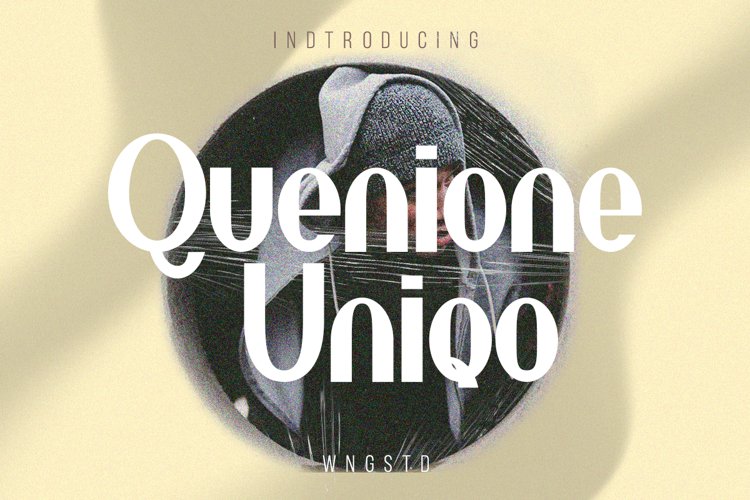
Quenione Unico - Unique sans serif is a playful and modern font. featuring a lightweight, it offers support for all characters. standard punctuation glyphs are included. Quenione Unico - Unique sans serif is perfectly suited for traditional media and the web. great for the crafter and graphic artists. compatible with all tools. its playfulness makes it great for creative project., be inspirational wall poster, or for communicating your brand.